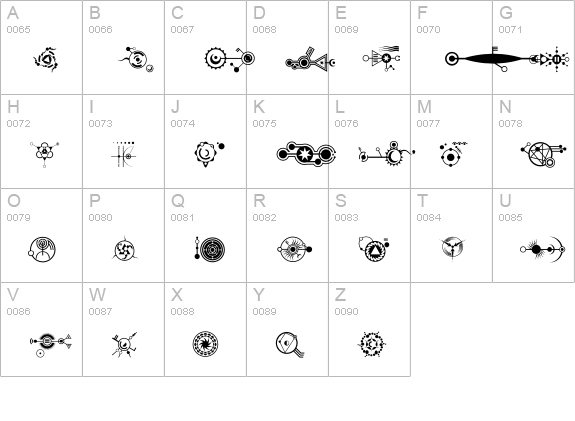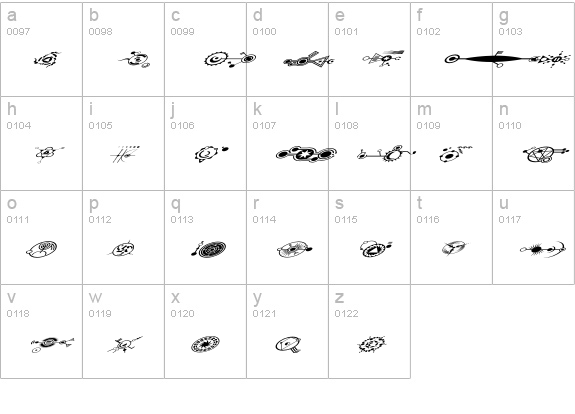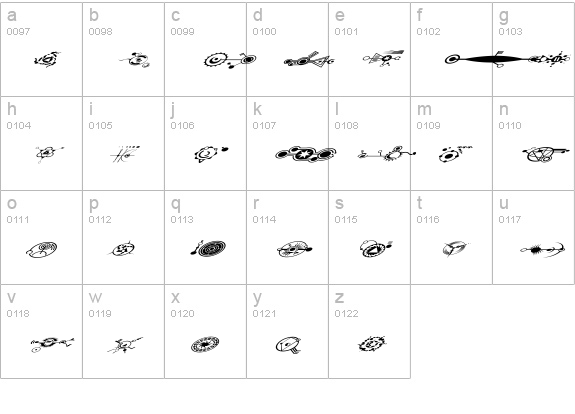
CropCircles Font Details
Introducing CropCircles font, a modern and stylish typeface that exudes a sense of creativity and innovation. With its unique circular design and sleek lines, CropCircles is perfect for adding a touch of sophistication to any project. Whether you're designing a logo, poster, or website, this font will make your text stand out and capture attention. What sets CropCircles font apart is not only its aesthetic appeal but also its versatility. It works well in both digital and print formats, making it a versatile choice for various design projects. Whether you're going for a minimalist look or a more elaborate design, CropCircles has got you covered. And the best part? CropCircles font is completely free to download at FontsMarket.com. Yes, you read that right - you can get your hands on this stunning font without spending a penny. So why wait? Add CropCircles to your font collection today and elevate your designs to the next level.